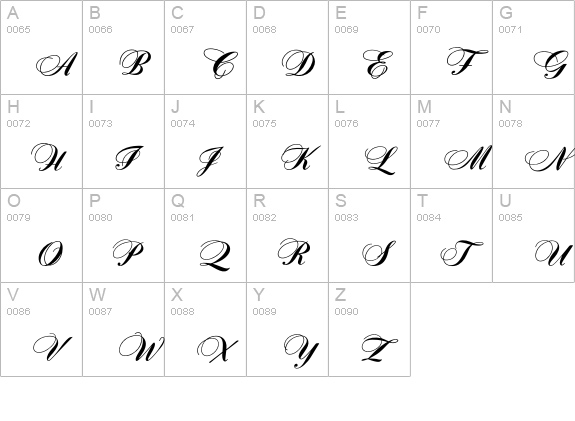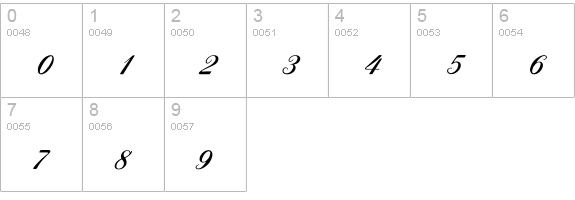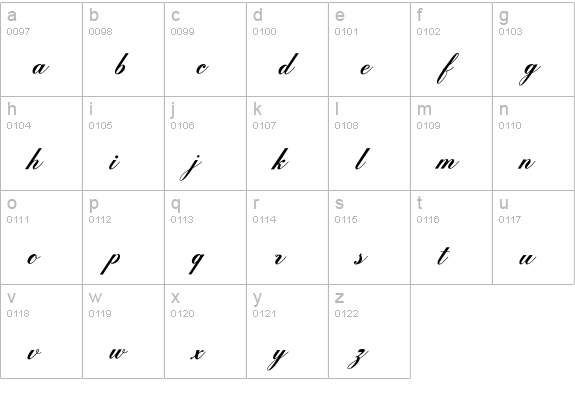
Gitarre Font Details
Gitarre font is a versatile and elegant typeface that combines classic elements with a modern twist. Its sleek lines and distinctive curves make it perfect for a wide range of design projects, from logos to posters to website headings. The Gitarre font exudes sophistication and style, making it a popular choice for designers looking to make a statement. What makes Gitarre font even more appealing is that it is completely free to download. Yes, you heard that right - this stunning font is freely available at FontsMarket.com for you to use in your personal and commercial projects. So why wait? Add a touch of class to your designs with the Gitarre font today!